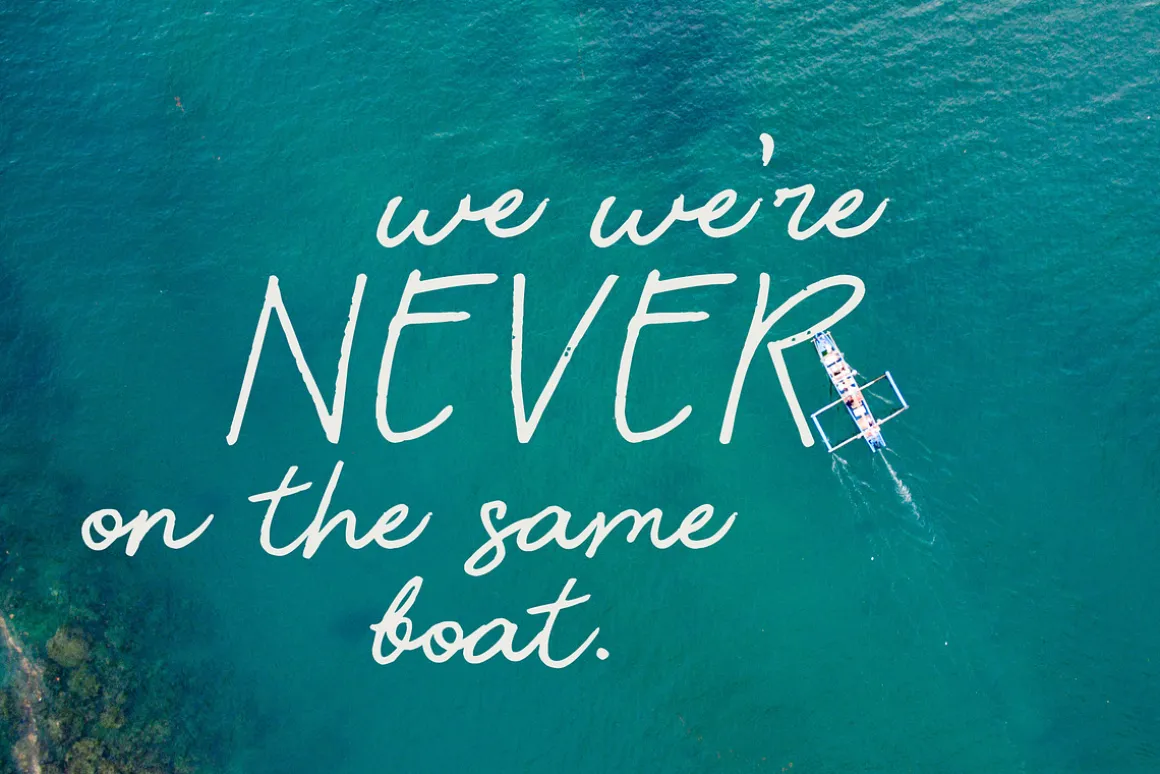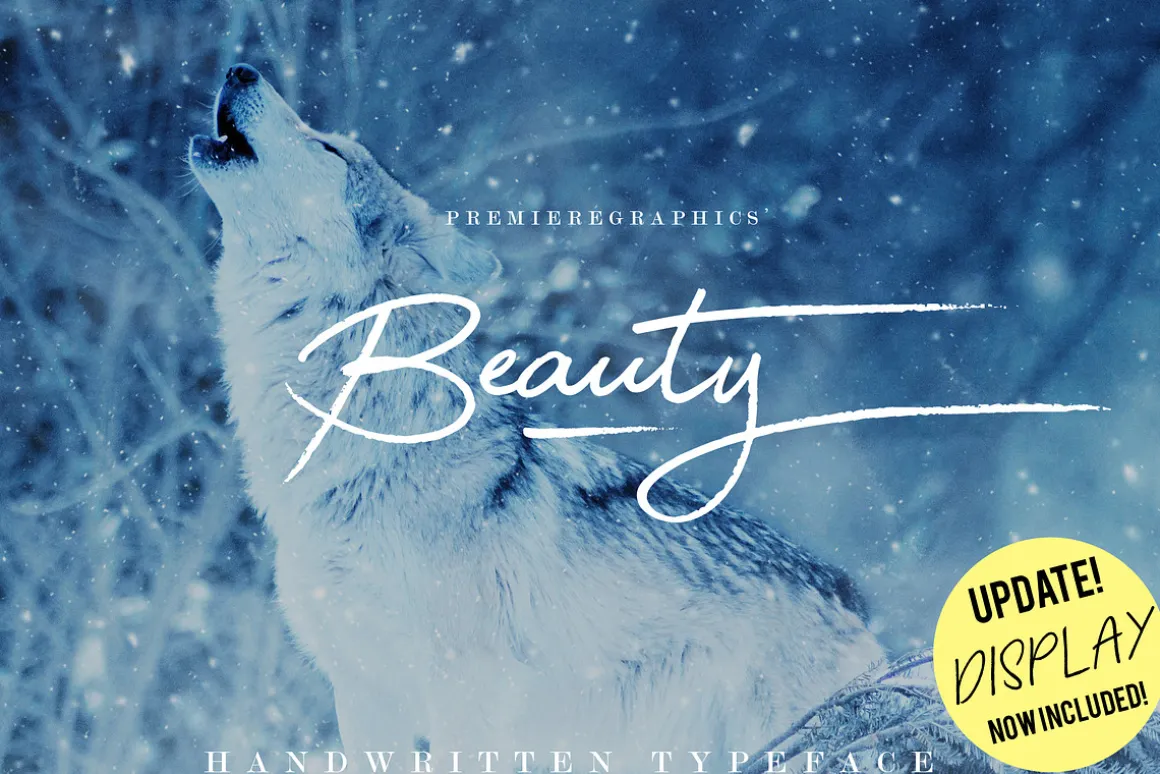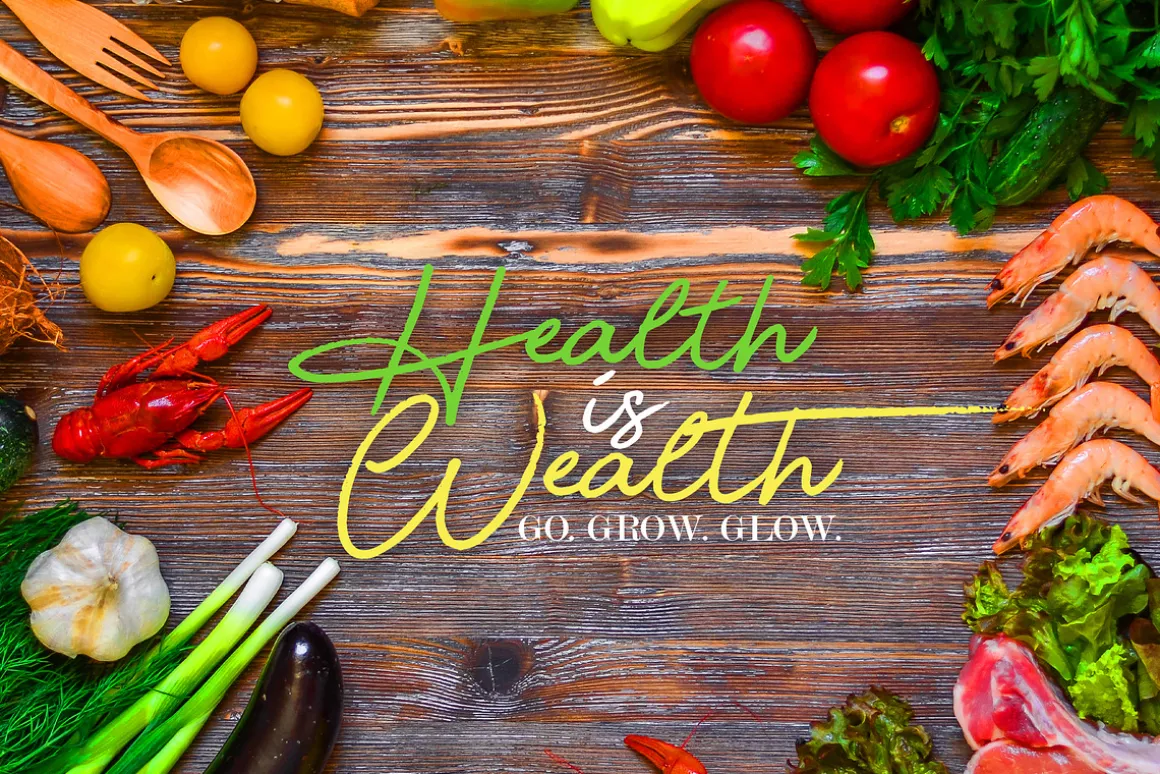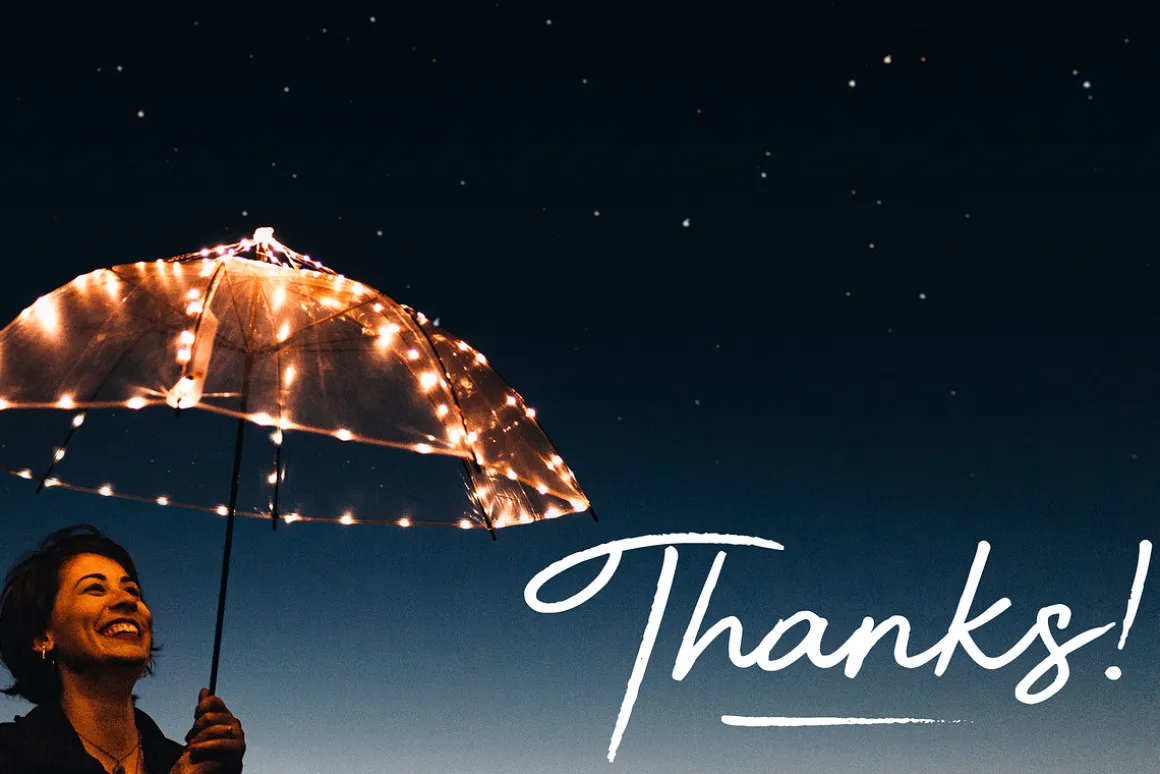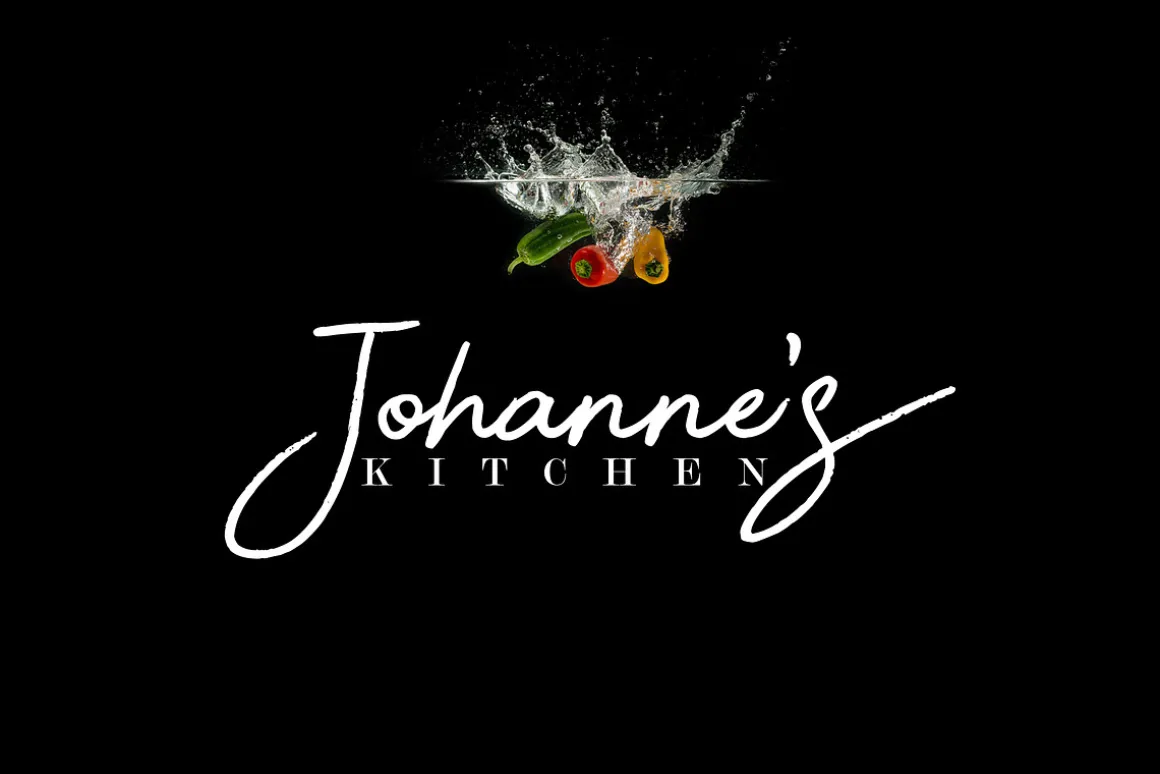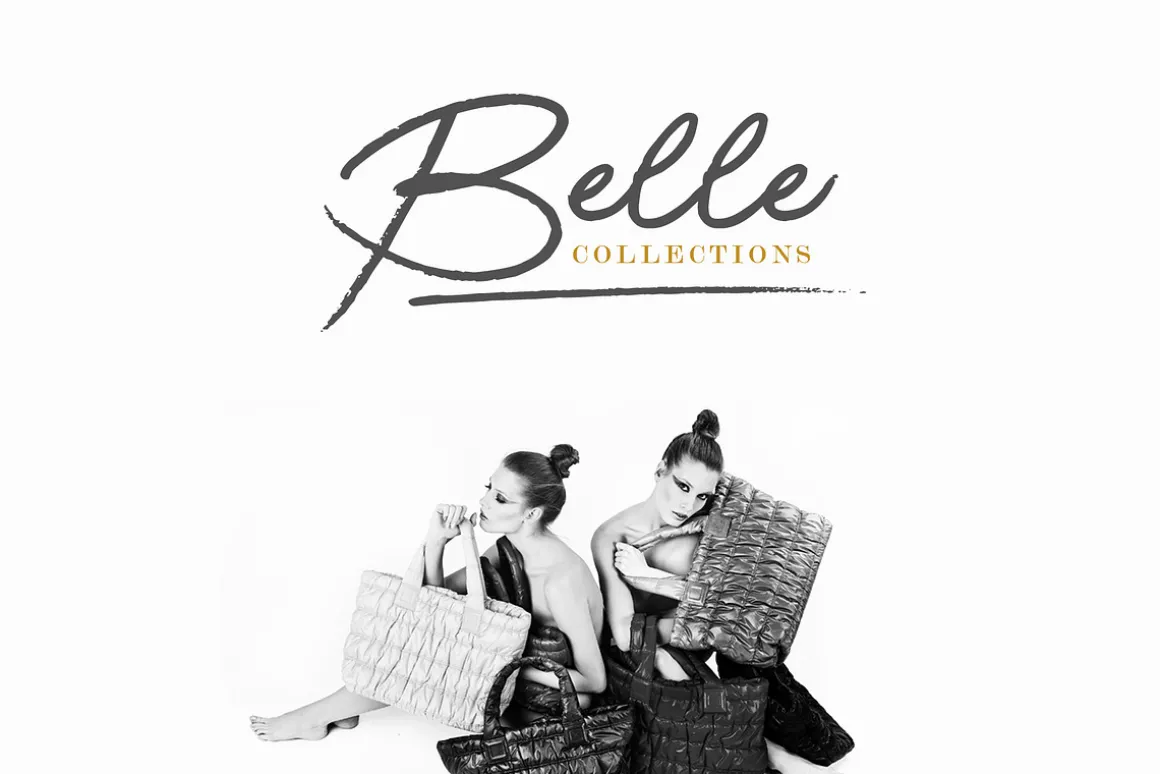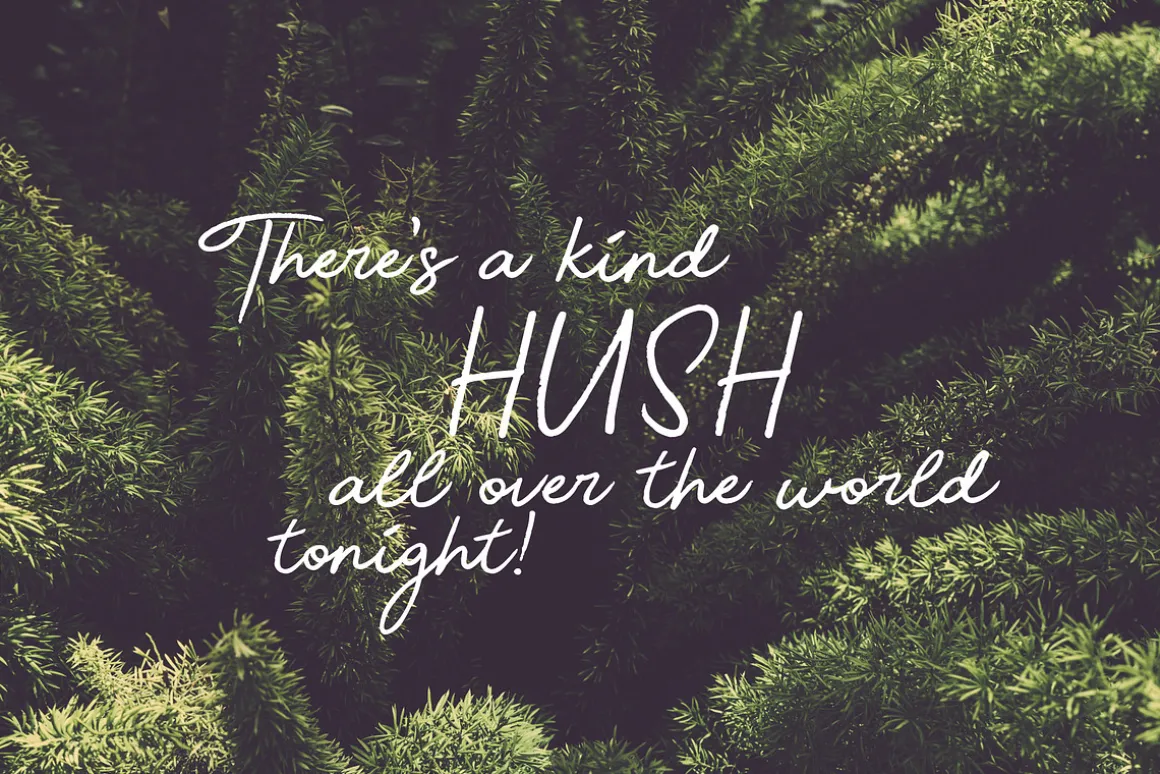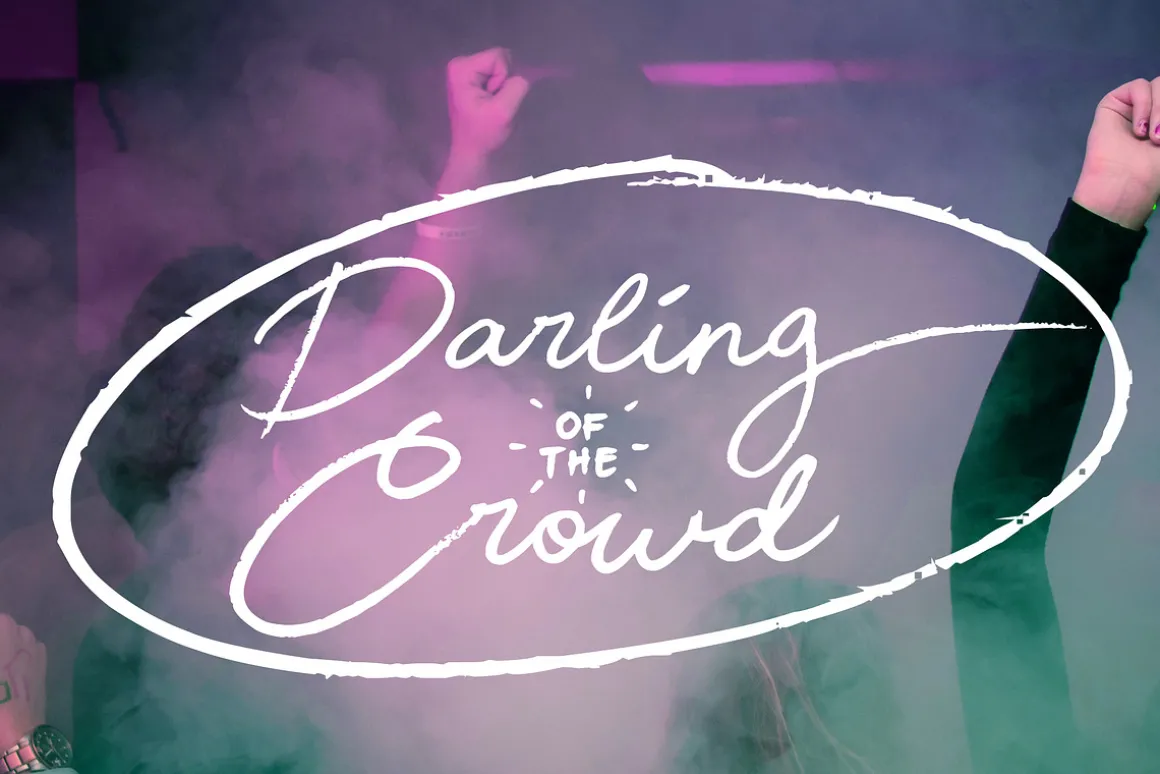
Beauty is in the eye of the beholder, and now Beauty can be on your next project!
Introducing, the Beauty font! This font is unique and very pleasant to the eyes. The font can be a sassy complement for a happy project, or a classy typography design on your brand. Beauty font includes swashes extras. This font is designed to be a perfect choice on your next project!